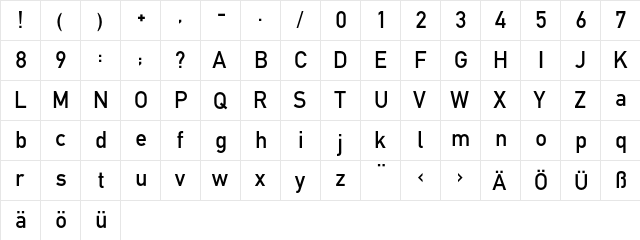
DIN1451EF MittelNeu
Design Context for DIN1451EF Typeface
DIN1451EF is a composed and adaptable typeface that performs quietly and consistently across a wide range of design contexts.